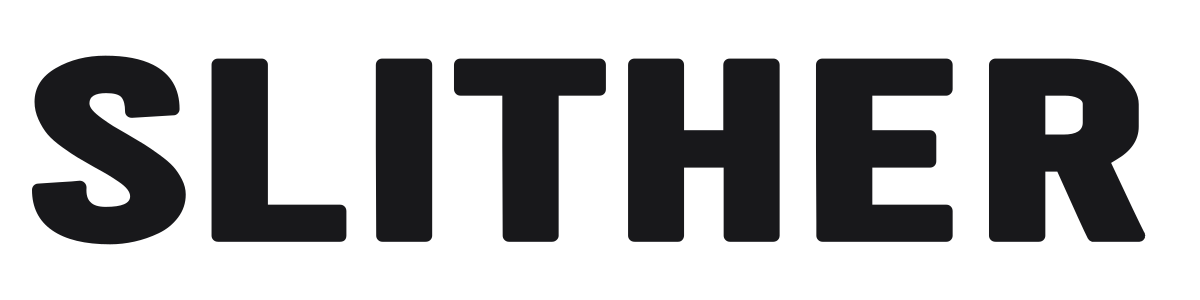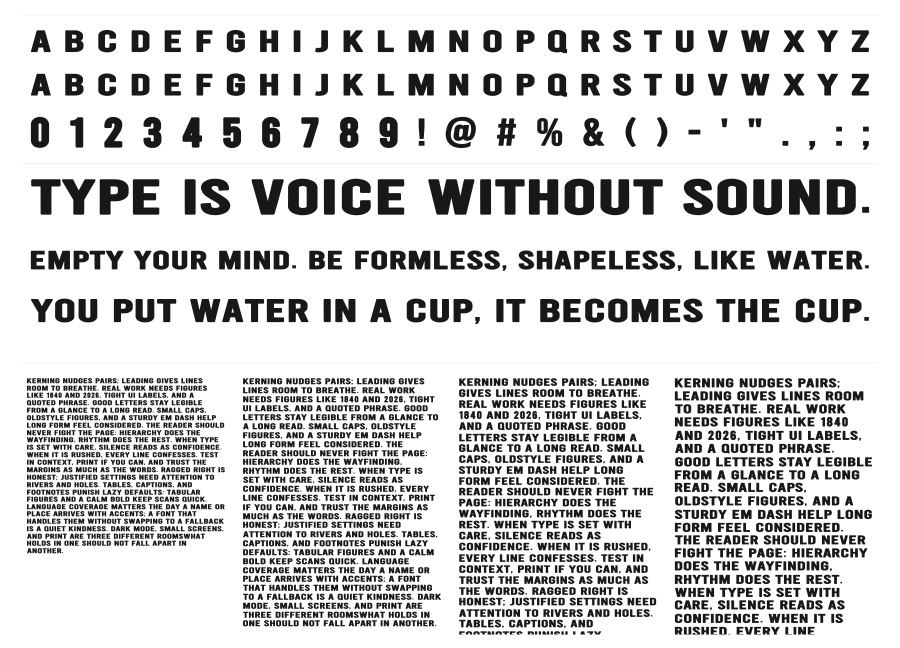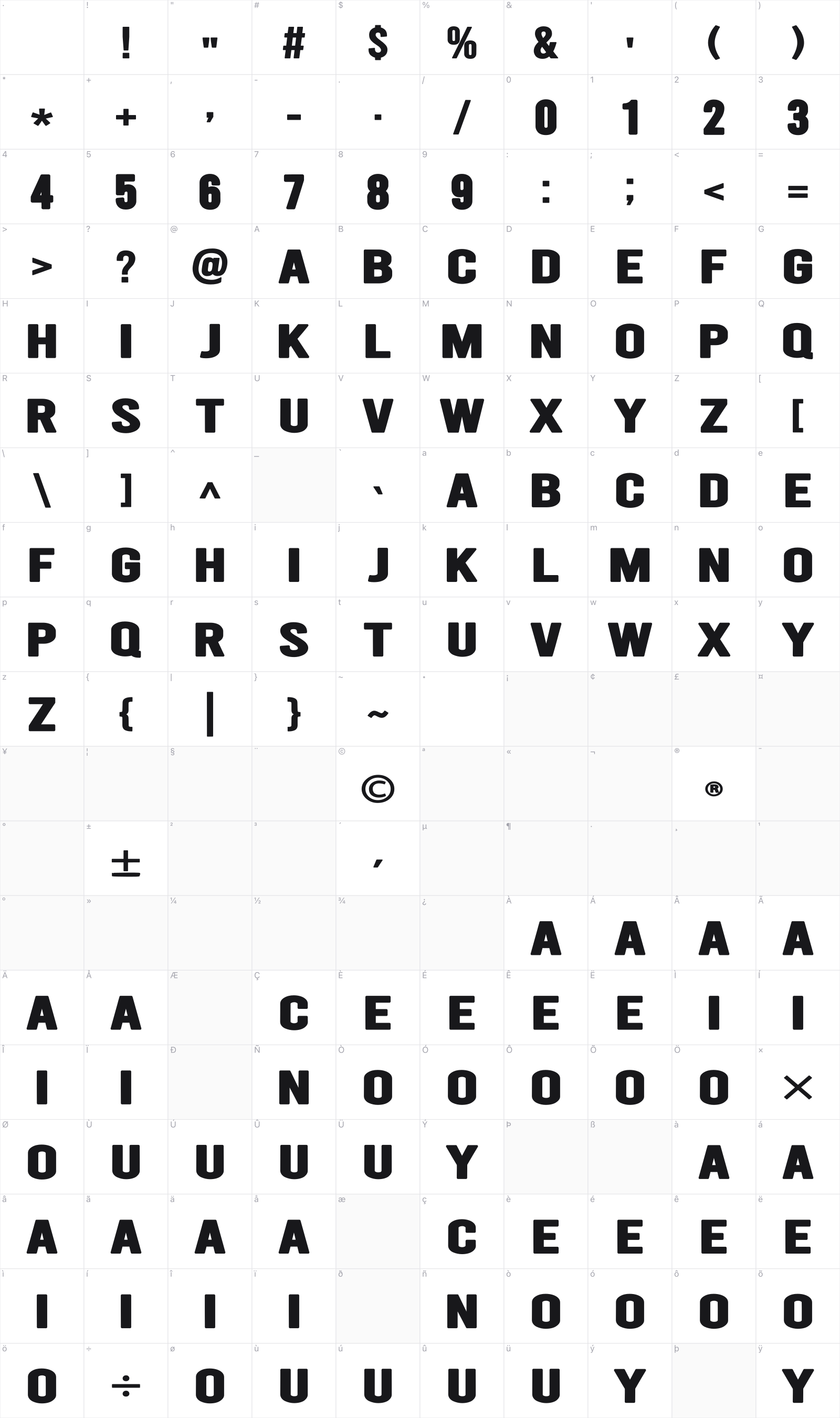
Slither
Slither is a heavy condensed grotesque with a raw, stamped quality that sets it apart from clean mechanical sans-serifs. Subtle notches at stroke junctions give it a handmade, screenprint feel without sacrificing legibility at large sizes. The bold black weight and tight spacing make it built for punchy headlines, labels, and brand marks.